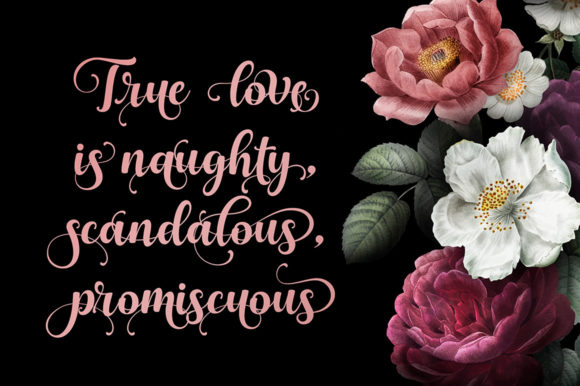
Gloria Beauty Font
Gloria Beauty is a script with a new idea that has letter characters connected to each other, so it looks unique and romantic to others. This font has beautiful, well-balanced characters, making it suitable for a variety of purposes. such as posters, wedding invitations, logos, branding, titles, signs, labels, mugs, quotes, and others.